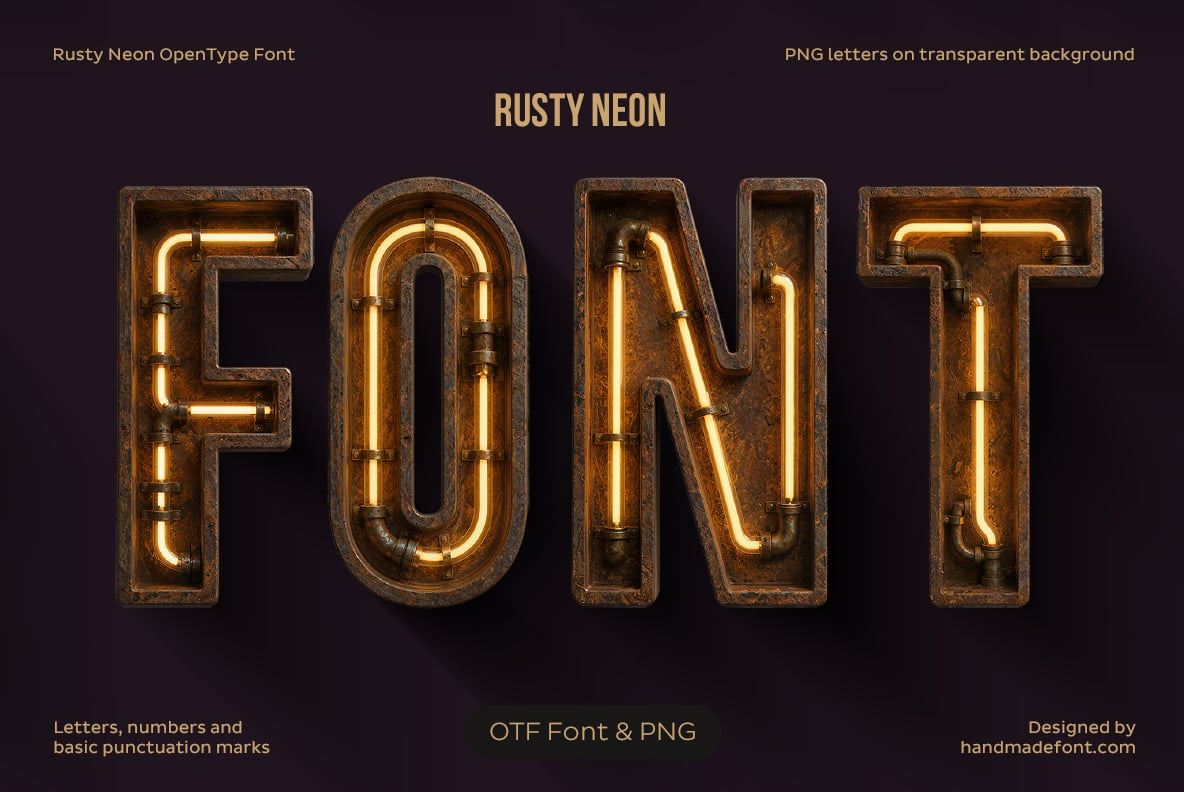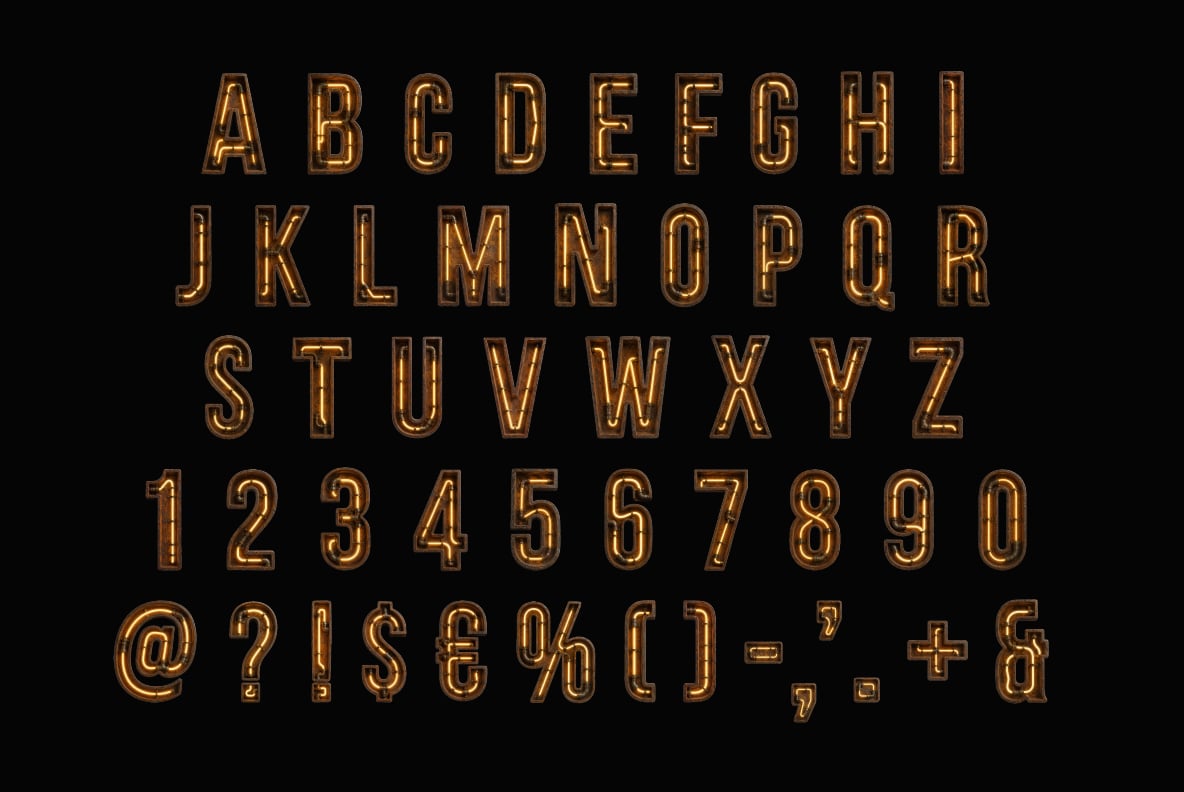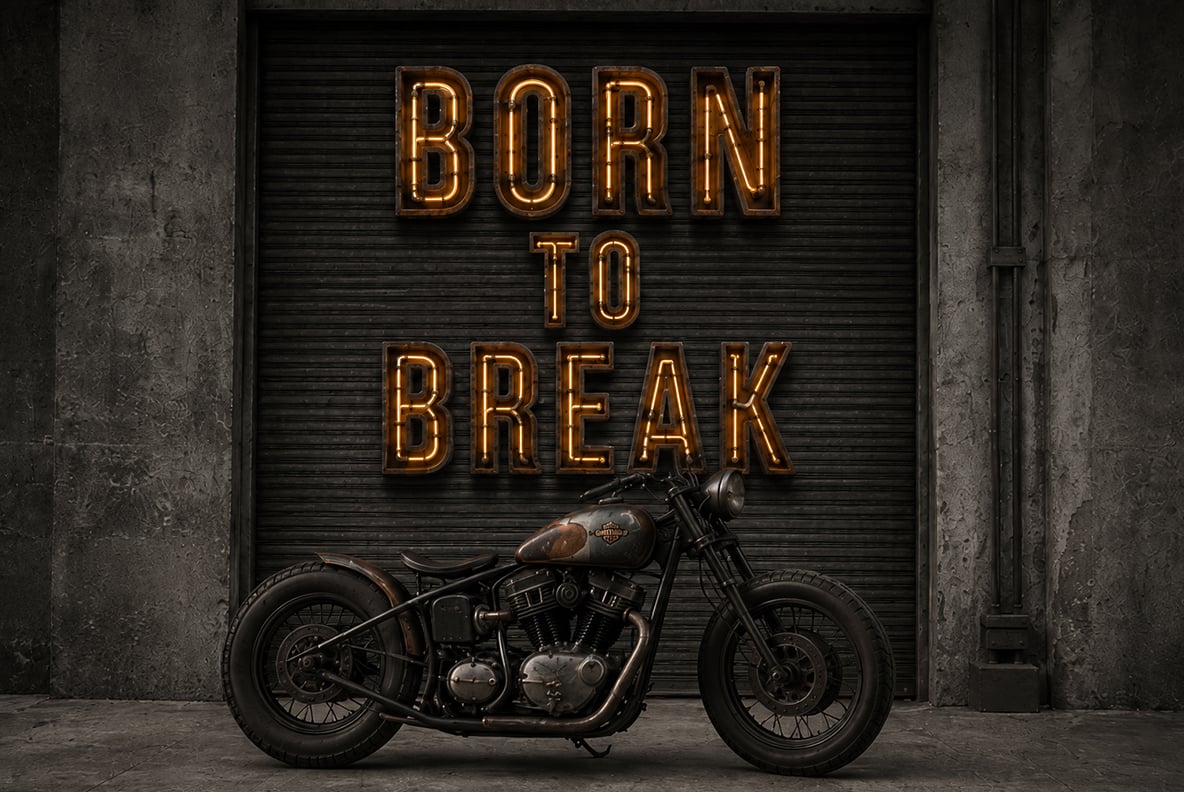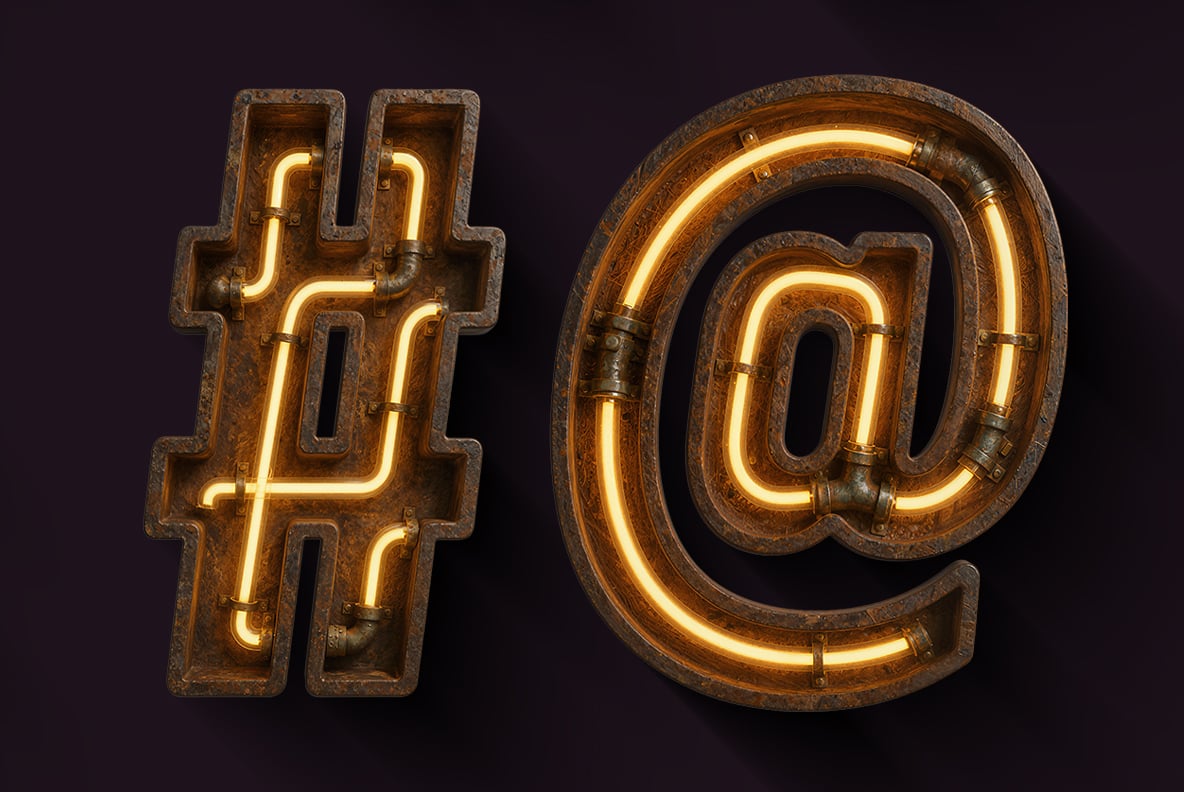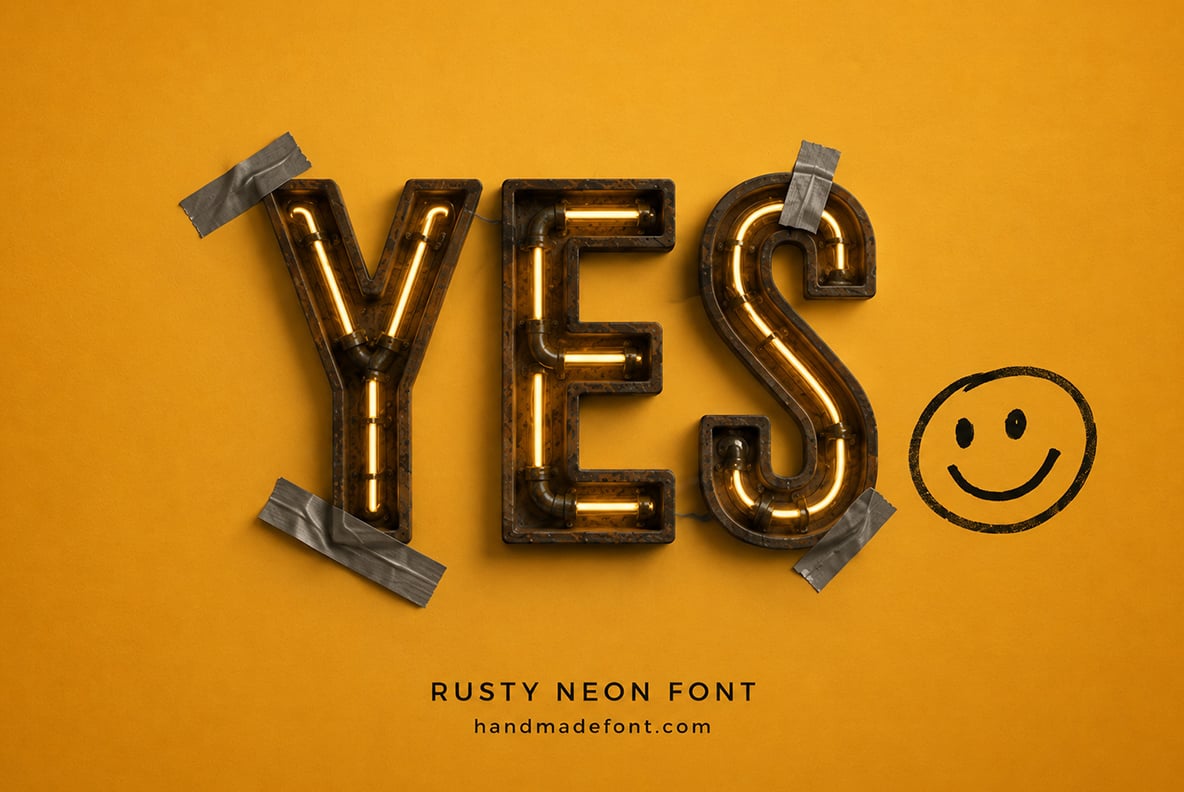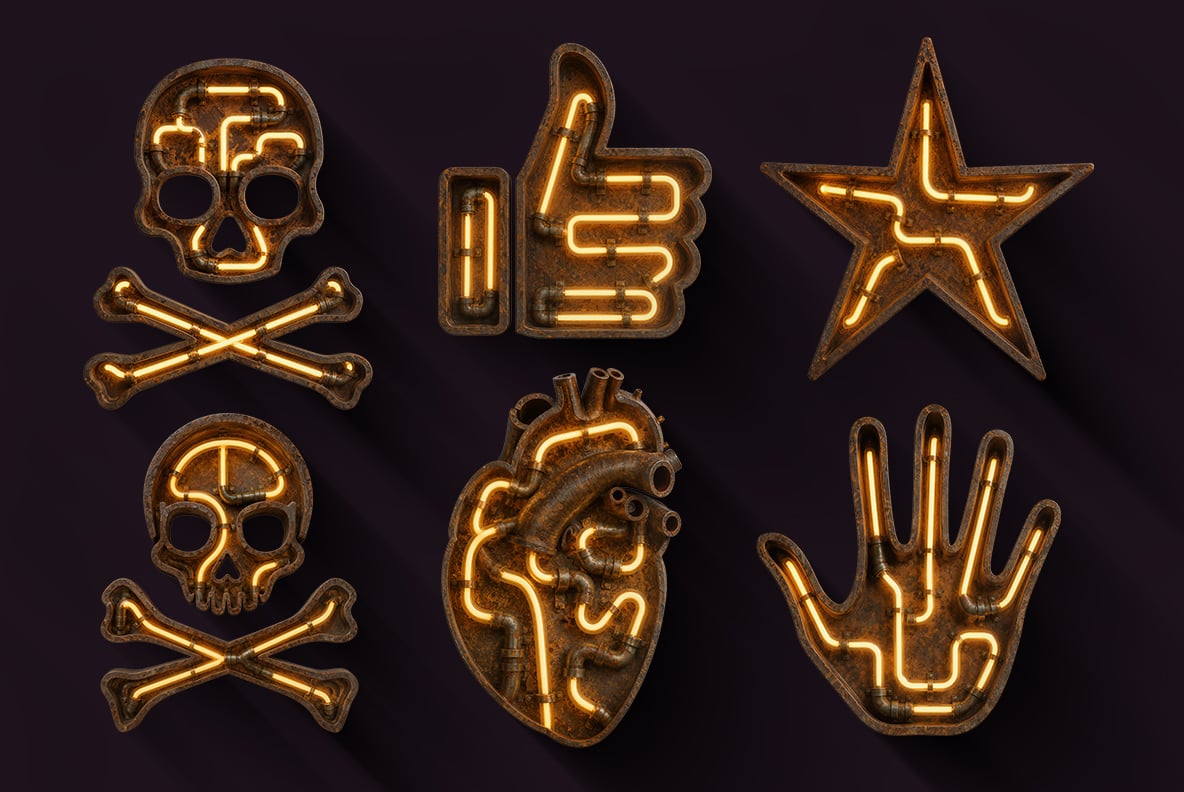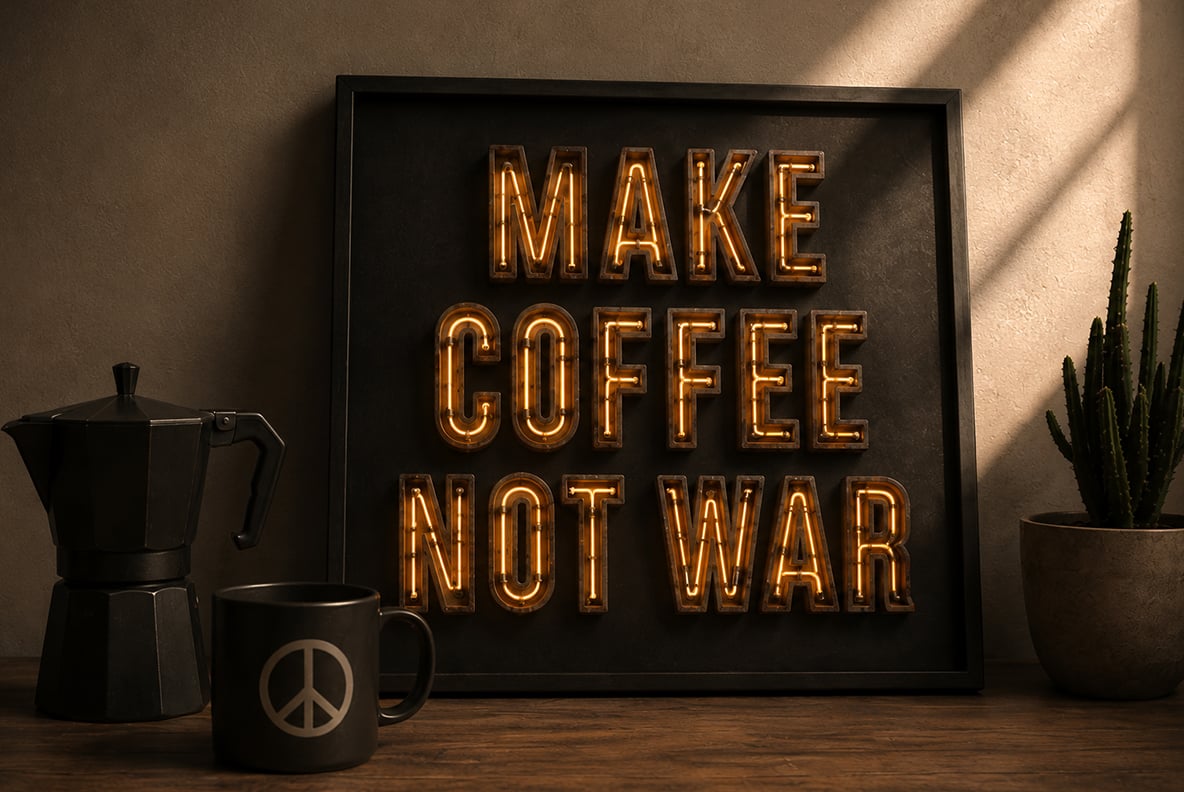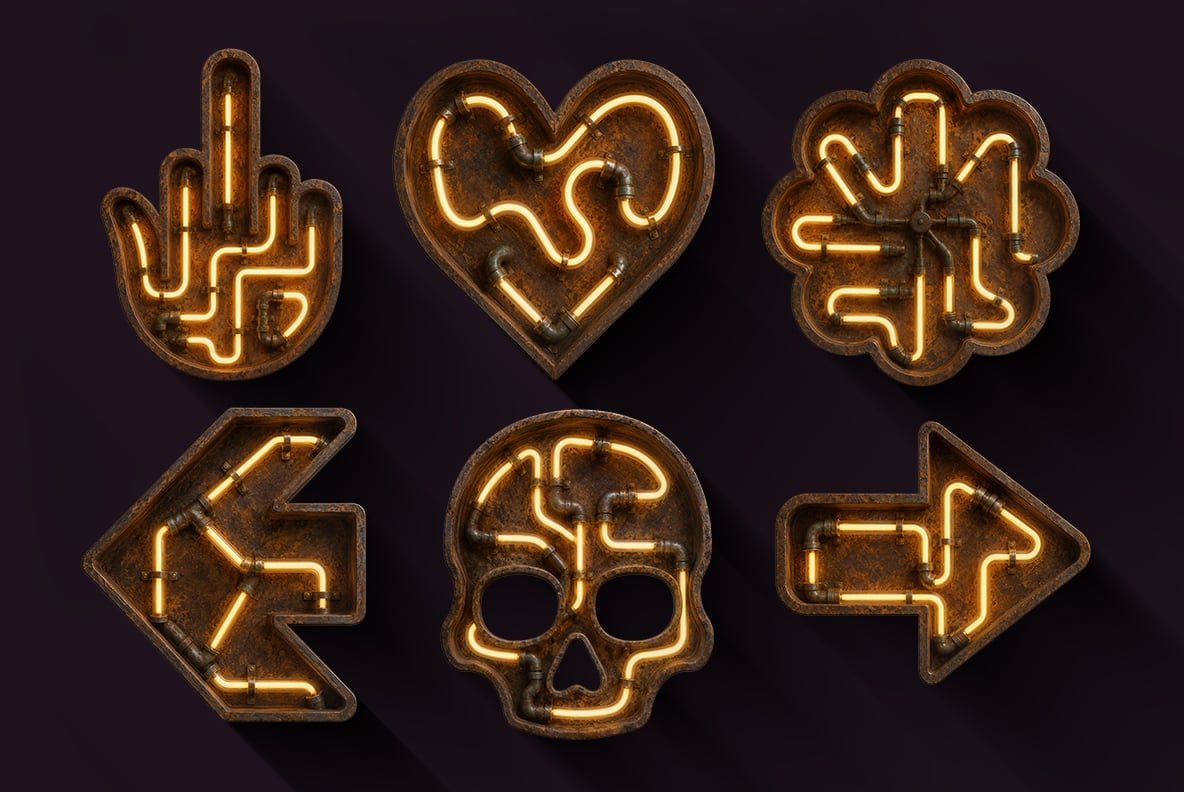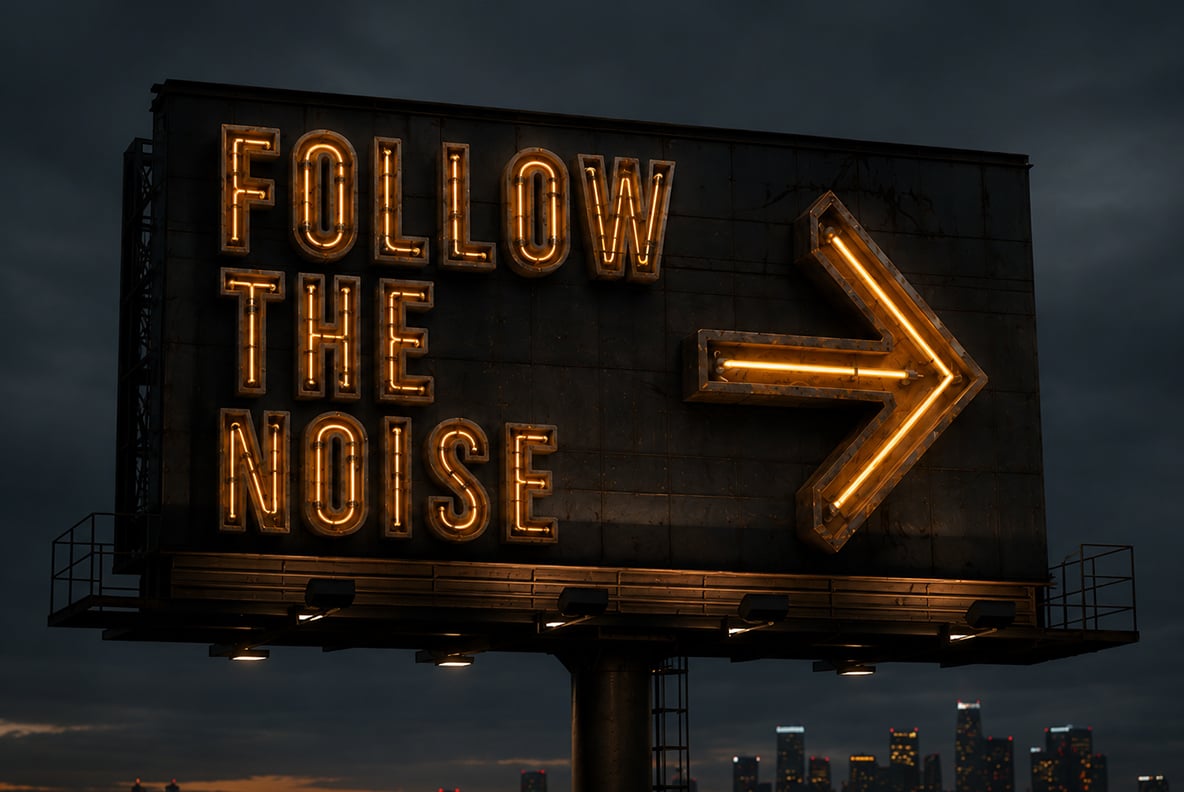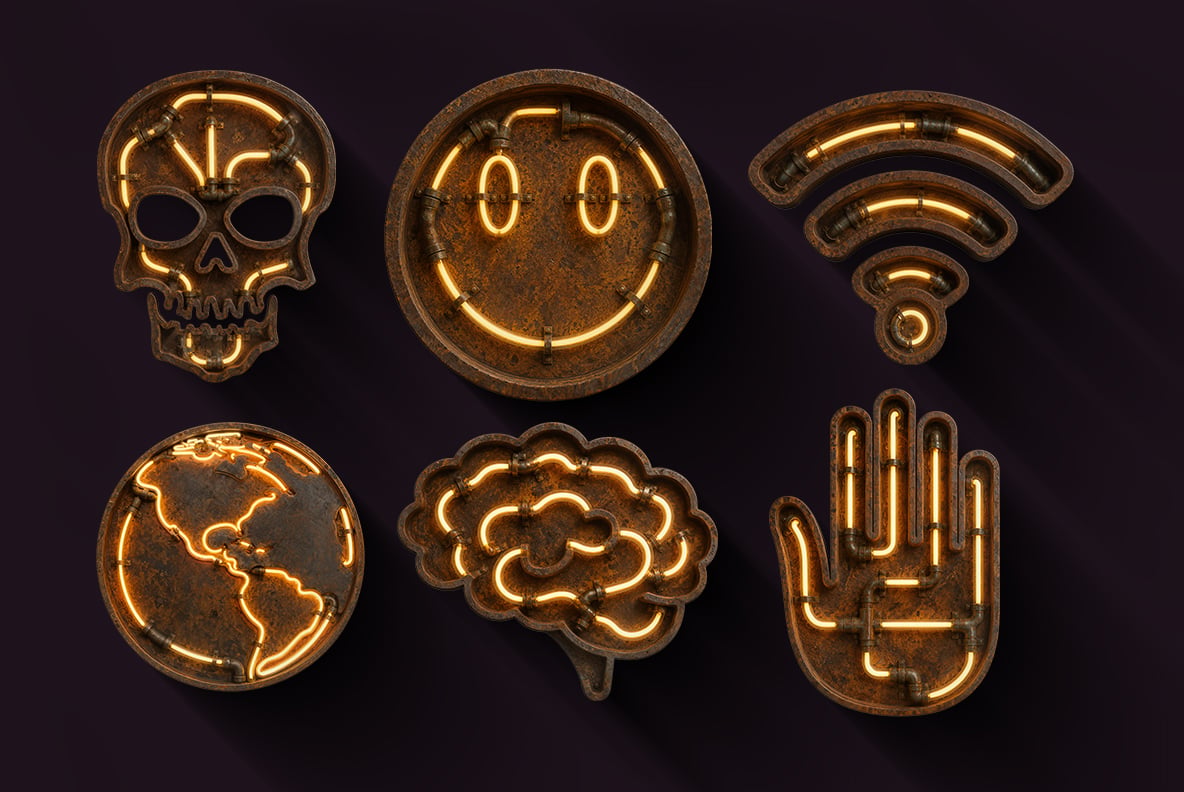
Rusty Neon Font
Rusty Neon Font brings the nostalgic charm of vintage industrial neon signs into a bold, high-quality typeface. Featuring realistic rusty metal frames and glowing neon tubes, this font is perfect for posters, branding, packaging, signage, apparel, social media graphics, and creative advertising. The package includes the complete OpenType (OTF) font for easy typing and a full set of individual PNG letters with transparent backgrounds, giving you maximum flexibility for custom layouts and graphic design. Whether you're creating retro-inspired artwork or eye-catching promotional materials, Rusty Neon Font delivers an authentic handcrafted look with striking illuminated details and timeless industrial character.
Others : ! ? - . ' $ € % & #